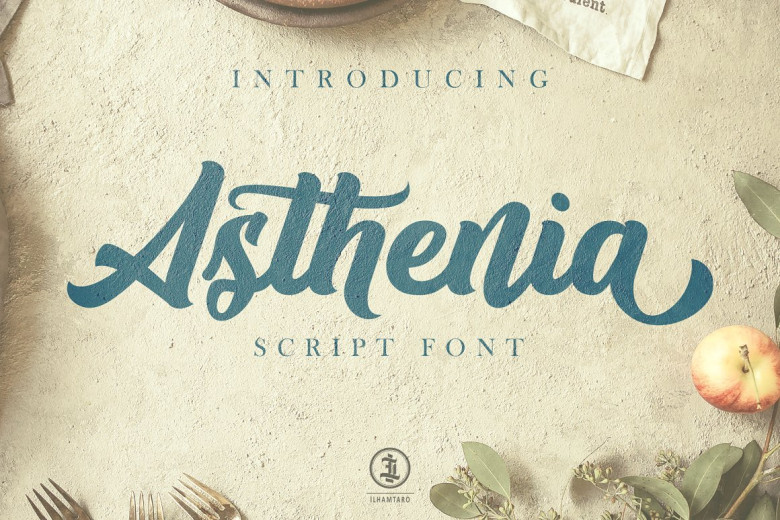
Asthenia Script Font
You will receive the best typography from us, and thank you for accompanying us over the years. Introducing Asthenia. It is was designed and shares by ilhamtaro. Inspired by brushpen calligraphy, showing the characteristic of its flow and thickness. Asthenia is a script font with 420+ glyph including uppercase, lowercase, numerals, punctuations, ligatures and a lot of alternate characters, so it can easily customized to create logotype, poster, flyer, t-shirt design, packaging, branding, merchandise and many other creative projects.